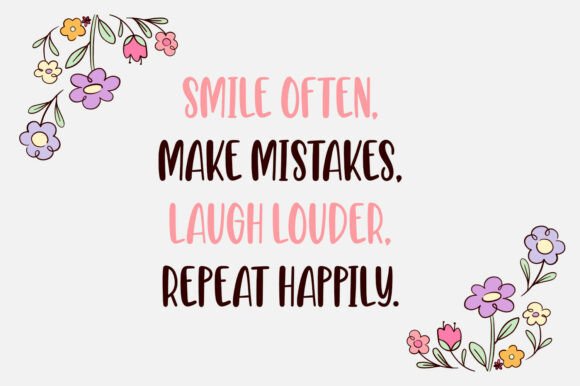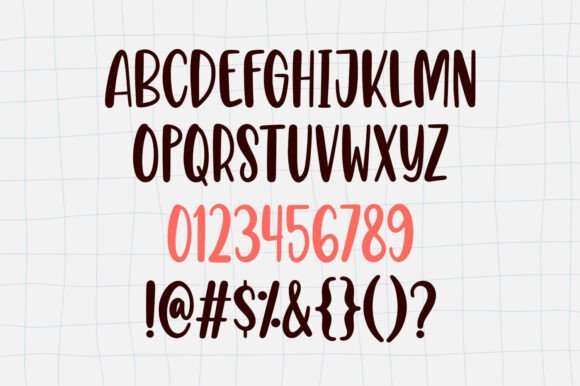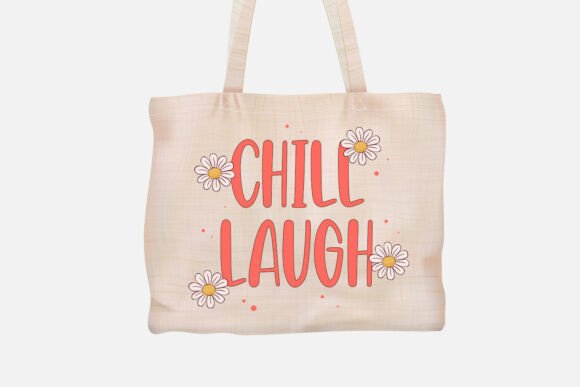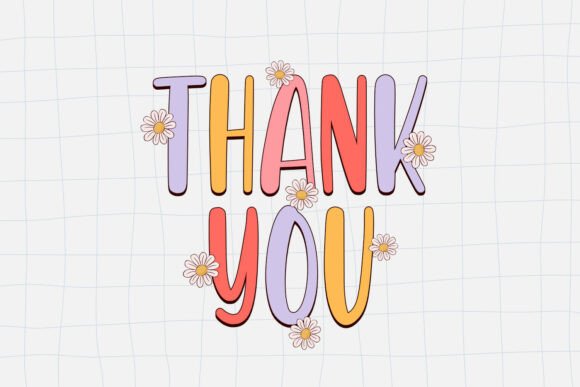
Introduction to Little Violni Font
Little Vioni Font is a cheerful, handwritten sans font is designed to bring brightness, warmth, and creative joy into every crafting project.
Inspired by natural handwriting and softened sans-serif structures, this font delivers a friendly and uplifting personality that feels both playful and approachable Its smooth strokes, rounded edges, and balanced proportions make each letter feel lively while remaining clean and readable.
Key Features of Little Violni Font